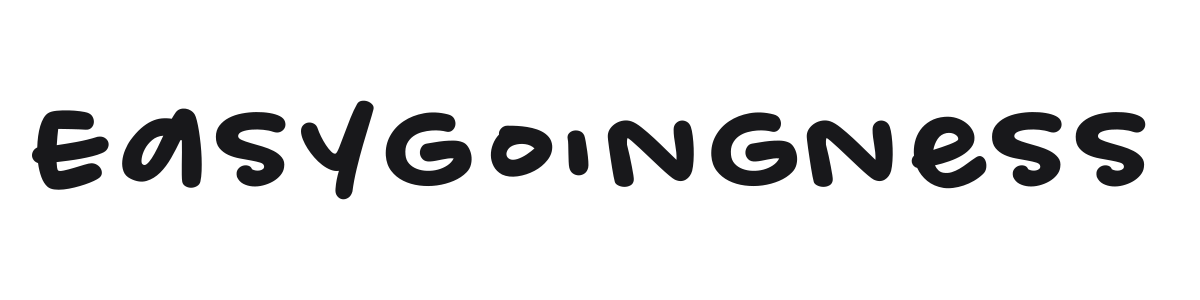
Easygoingness
Easygoingness is a bold, casual handwritten font by Brittney Murphy with thick rounded strokes and a charmingly irregular hand-lettered feel. Characters bounce slightly off the baseline with unpredictable sizing, giving it a genuine spontaneity that's hard to fake. It brings immediate warmth to packaging, kids' content, and any brand that wants to feel relaxed and approachable.